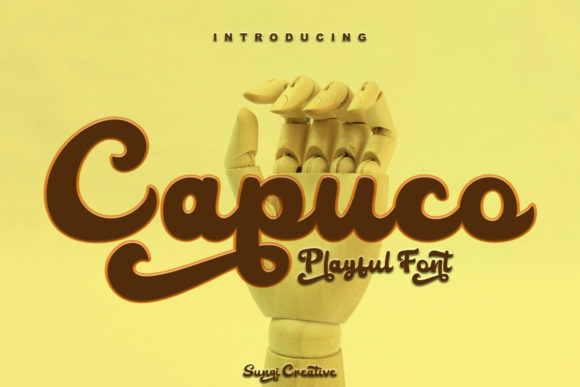
The Ultimate Guide to Capuco Font: A Playful, Thick Lettered, and Vintage Styled Script Font
A Personal Review of Capuco Font
So, what makes Capuco Font so special? Here are a few things I absolutely love about it:
• ✨ Playful and fun: Capuco Font has a super playful and fun vibe that’s perfect for crafting, digital designing, presentations, or making greeting cards.
• ✅ Thick lettered: The font has a nice weight to it, making it easy to read and perfect for headlines or titles.
• 💯 Vintage styled: The font has a beautiful vintage feel to it, with a subtle distressed look that adds to its charm.
• 🎉 Versatile: Capuco Font can be used for a wide range of projects, from digital designs to print materials.
Of course, no font is perfect, and Capuco Font has a few small quirks:
• 🤔 Limited use in body text: While Capuco Font is amazing for headlines and titles, it may not be the best choice for body text due to its playful and decorative nature.
• ⚠️ Some letters may not connect well: As with any script font, some letters may not connect as smoothly as others, so it’s essential to proofread your text carefully.
The Backstory of Capuco Font
Capuco Font was designed by a talented type designer who wanted to create a font that would evoke a sense of playfulness and nostalgia. The designer drew inspiration from vintage signs, posters, and advertisements to create a font that would be perfect for creative projects.
Font Name Capuco Font
Author SungiCreative
Q: What is Capuco Font?
Capuco Font is a playful, thick lettered, and vintage styled script font perfect for creative projects.
Q: Is Capuco Font suitable for body text?
While Capuco Font is amazing for headlines and titles, it may not be the best choice for body text due to its playful and decorative nature.